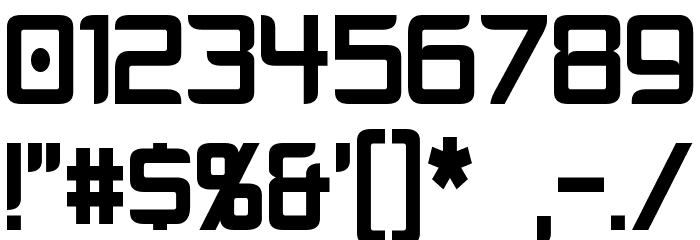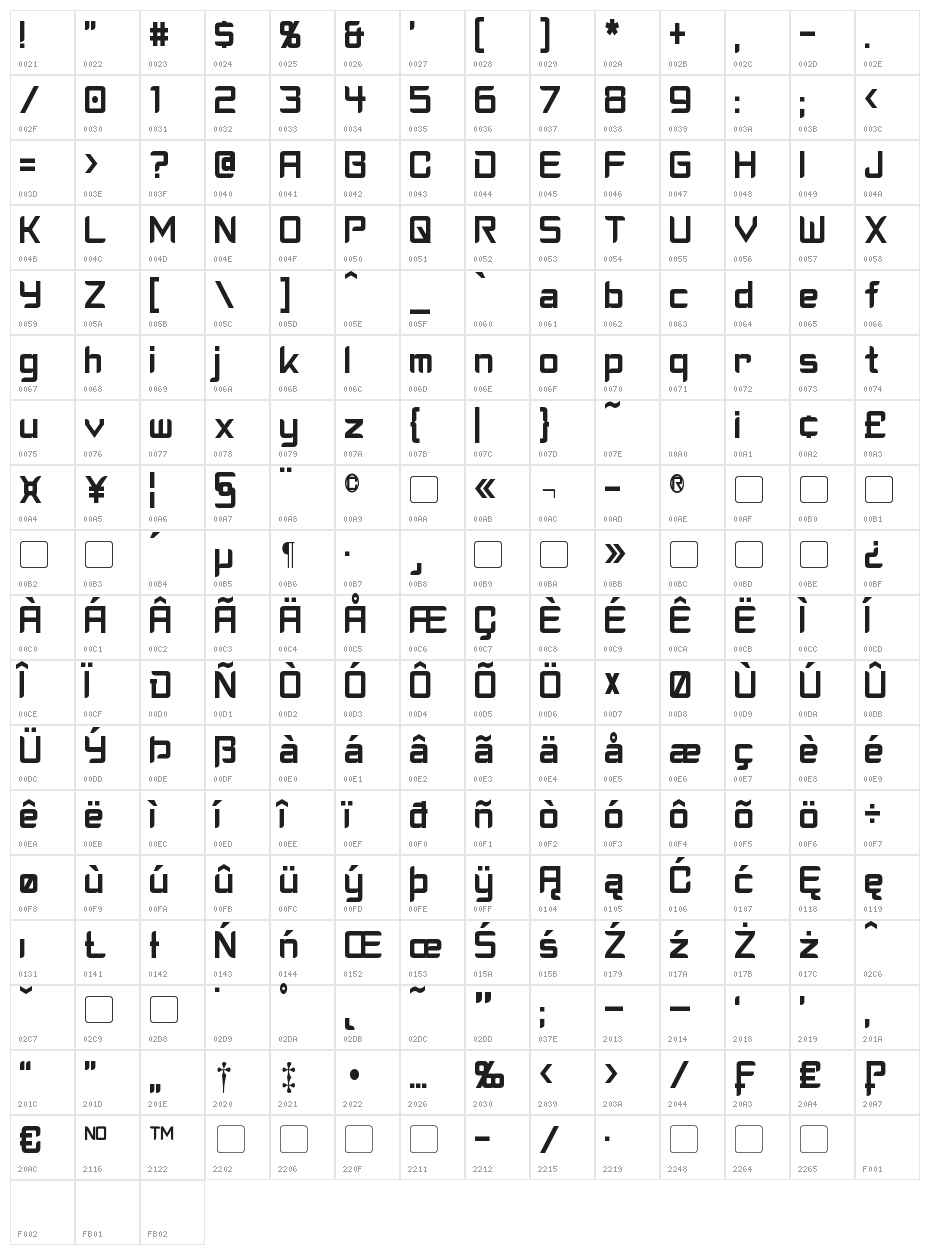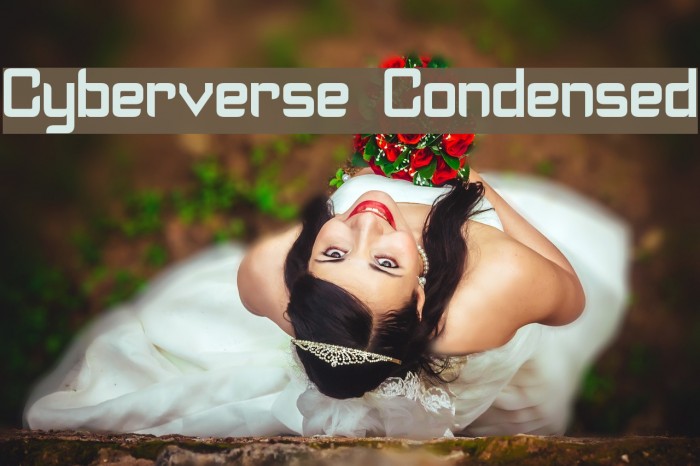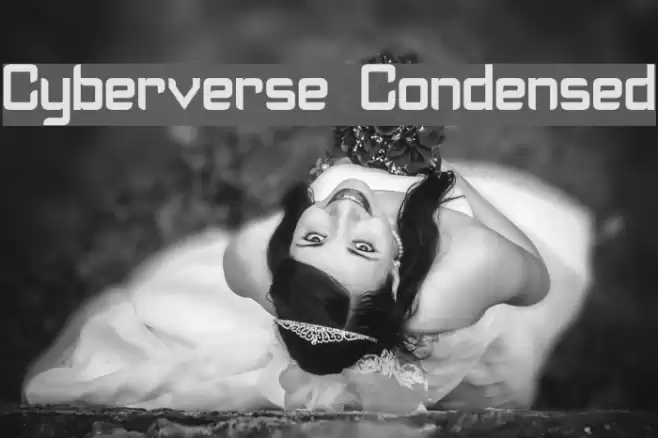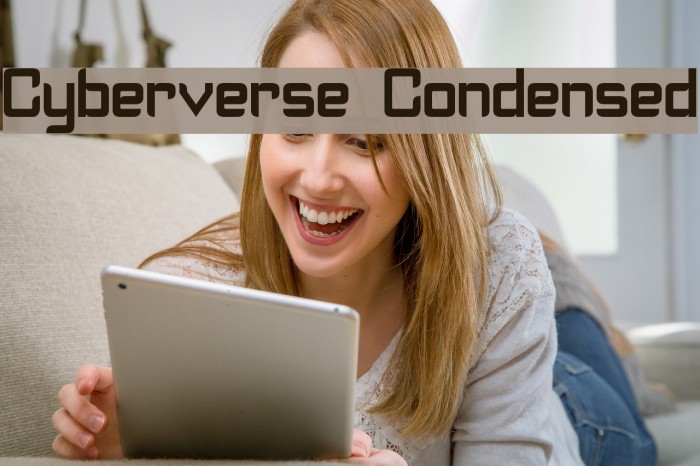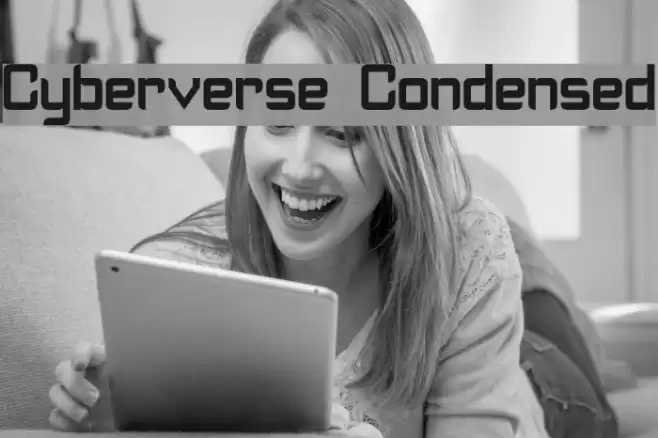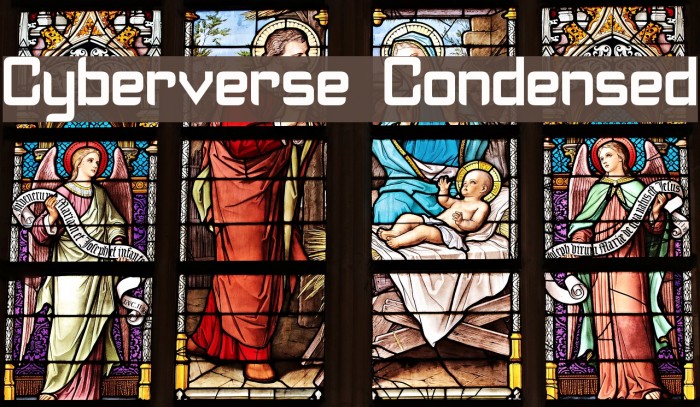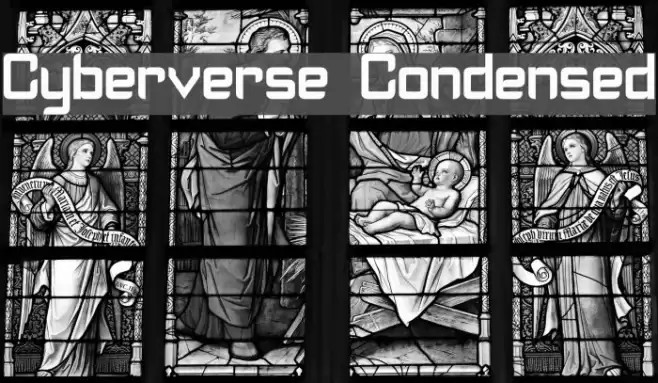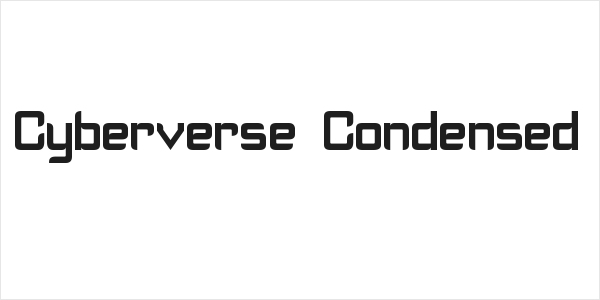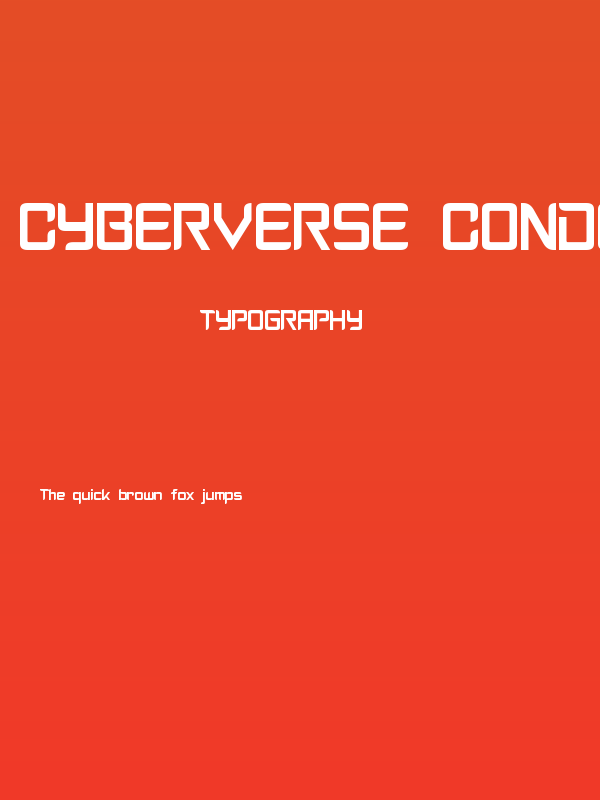
Cyberverse Condensed Font
Cyberverse Condensed Description
This font features a futuristic and geometric design, characterized by its condensed and angular letterforms. The uppercase letters are bold and structured, with a consistent stroke width that gives a modern and sleek appearance. The lowercase letters maintain the geometric style, offering a cohesive look across different text sizes. Numbers and special characters are designed to match the overall aesthetic, making them suitable for digital and tech-themed projects. The font's clean lines and minimalistic style make it versatile for various design applications.
| Proposed Projects | Ideal for tech branding, digital interfaces, video game titles, and sci-fi themed designs. |